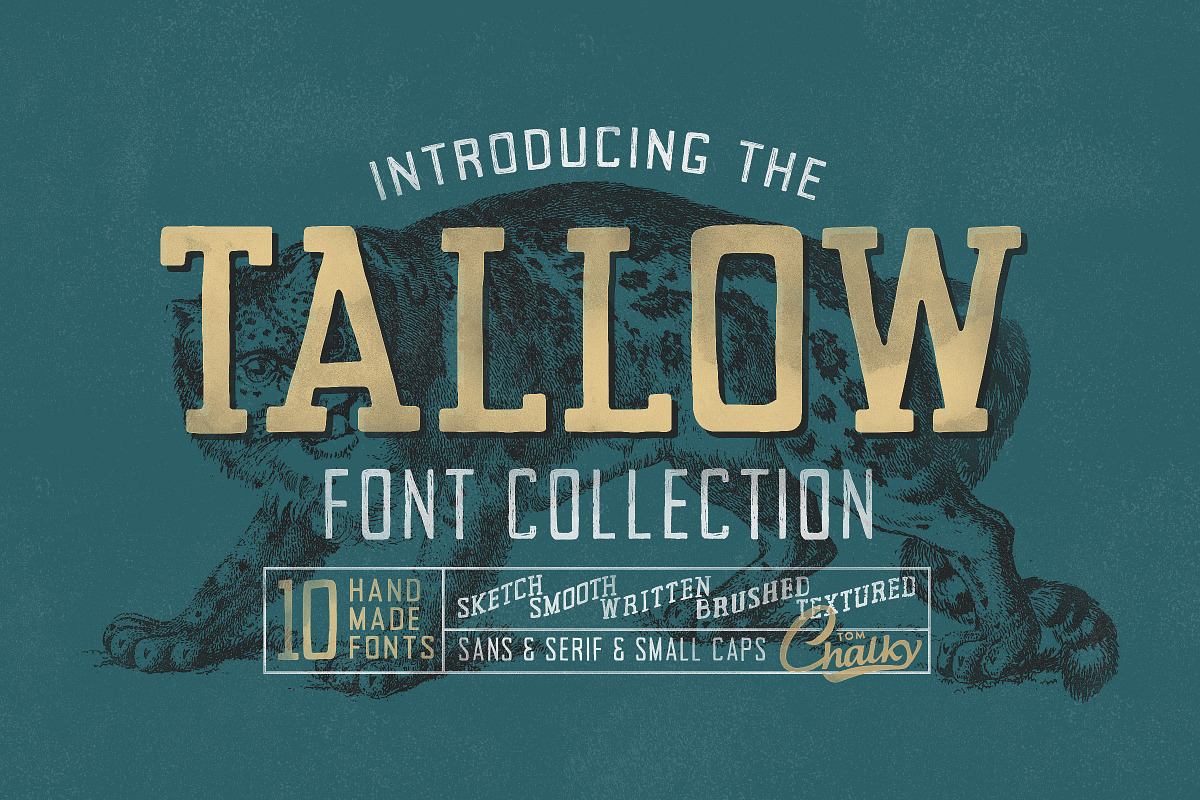
Tallow Font Collection (10 Fonts!) Free Download
Tallow Font Collection (10 Fonts!) Free Download is a comprehensive set of 10 unique fonts that offer a variety of styles, including serif, sans-serif, script, and display fonts. This bundle is perfect for a wide range of design projects, such as branding, packaging, social media graphics, invitations, logos, and more. Each font in the collection has been carefully crafted to provide versatility and style, ensuring your typography stands out in every design.
With options that cater to both bold statements and elegant details, the Tallow Font Collection gives you the flexibility to experiment and find the perfect font for any occasion. From modern minimalism to vintage flair, this collection has everything you need to elevate your creative projects.